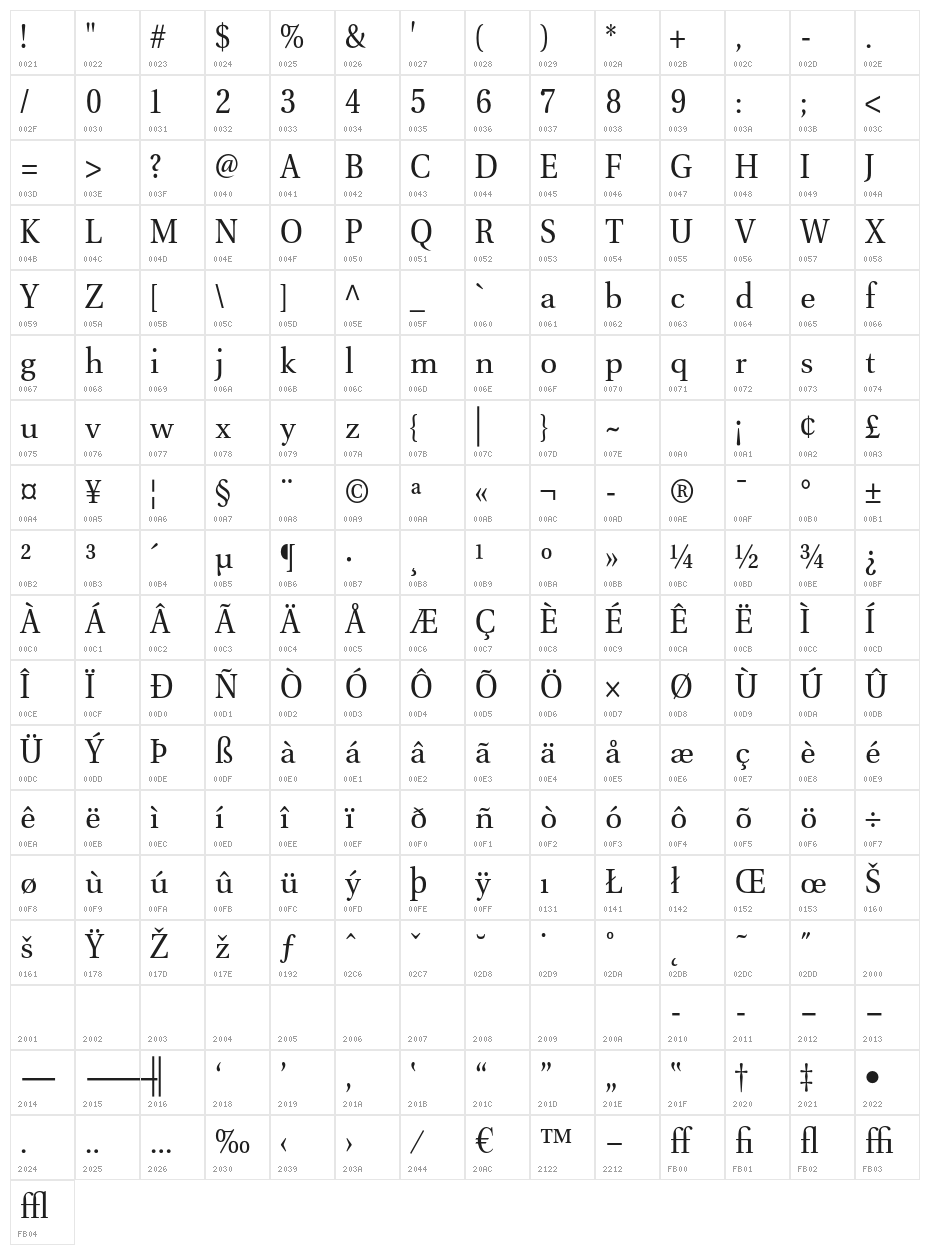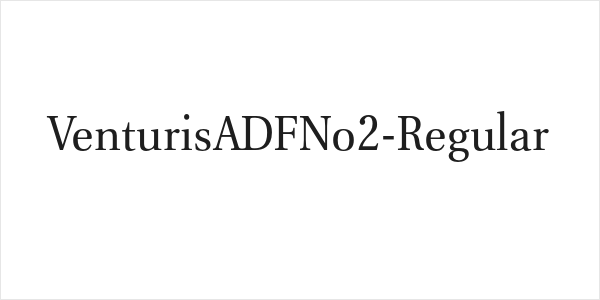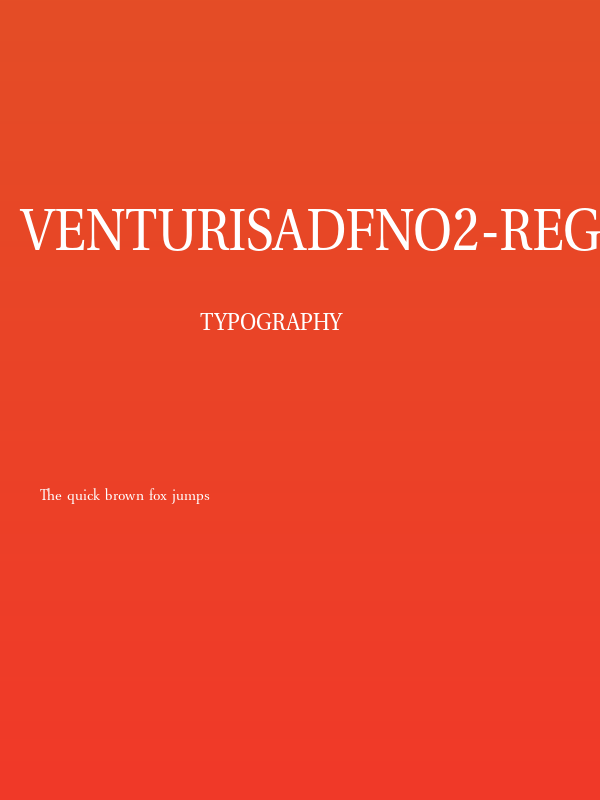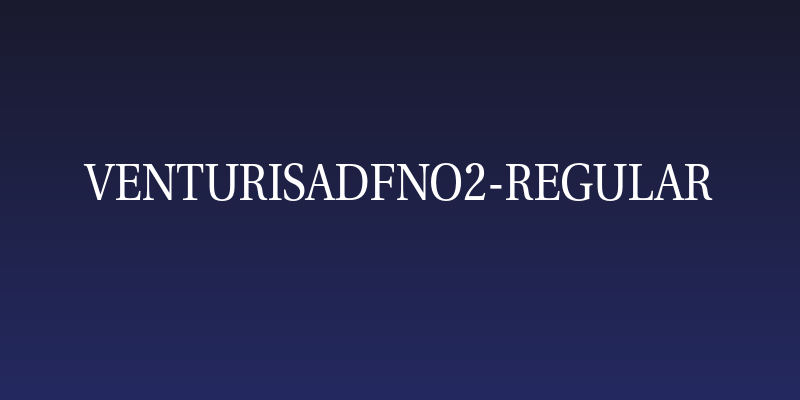
VenturisADFNo2-Regular Font
VenturisADFNo2-Regular Description
This font features a classic serif design with elegant and refined strokes. The characters exhibit a balanced proportion, with slightly elongated serifs that add a touch of sophistication. The uppercase letters are bold and commanding, while the lowercase letters maintain a smooth and readable flow. The numerals are clear and distinct, making them suitable for various applications. Special characters are well-integrated, maintaining the overall aesthetic. This font is versatile, offering a timeless appeal that can enhance both traditional and modern designs.
| Proposed Projects | Ideal for editorial design, book covers, formal invitations, and branding projects that require a touch of elegance. |